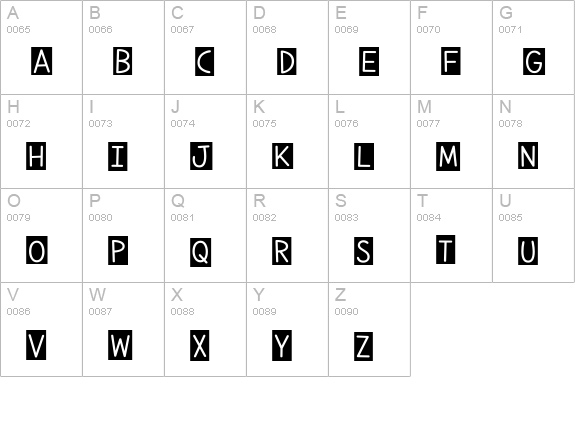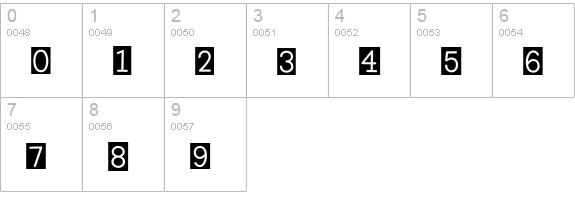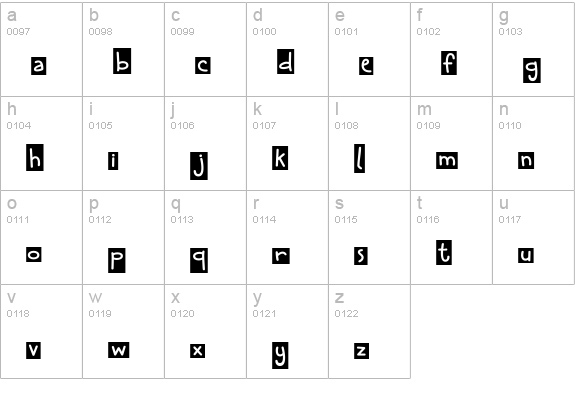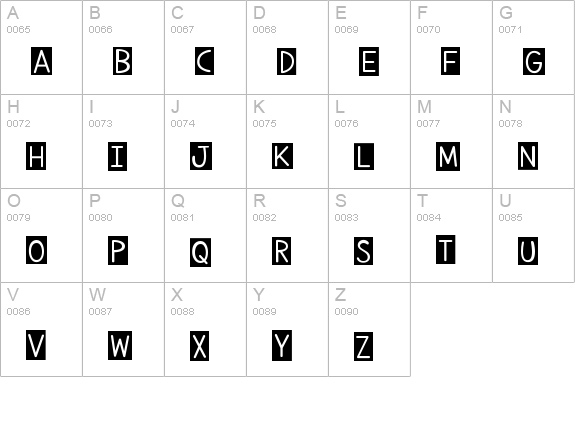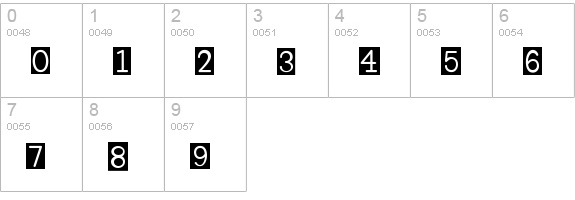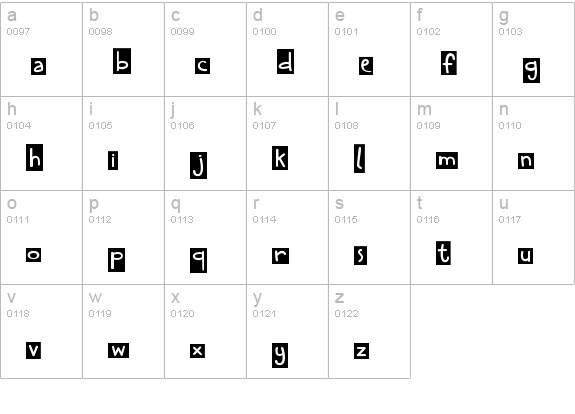
The Cheddar Salad BTN Cameo SqRev font is a unique and eye-catching typeface that is perfect for adding a touch of elegance to any design project. This font features a stylish and sophisticated appearance, making it ideal for a wide range of applications, from branding to editorial design. With its distinctive square revserse style, Cheddar Salad BTN Cameo SqRev font stands out and catches the eye in a subtle yet impactful way. The clean lines and sharp edges of this font give it a modern and sleek look that is sure to make a statement. Best of all, this font is available for free download at FontsMarket.com. Whether you're a designer looking to add a fresh new font to your collection or a business owner in need of a stylish typeface for your branding materials, Cheddar Salad BTN Cameo SqRev font is the perfect choice. Download it today and elevate your designs with this beautiful and versatile font.